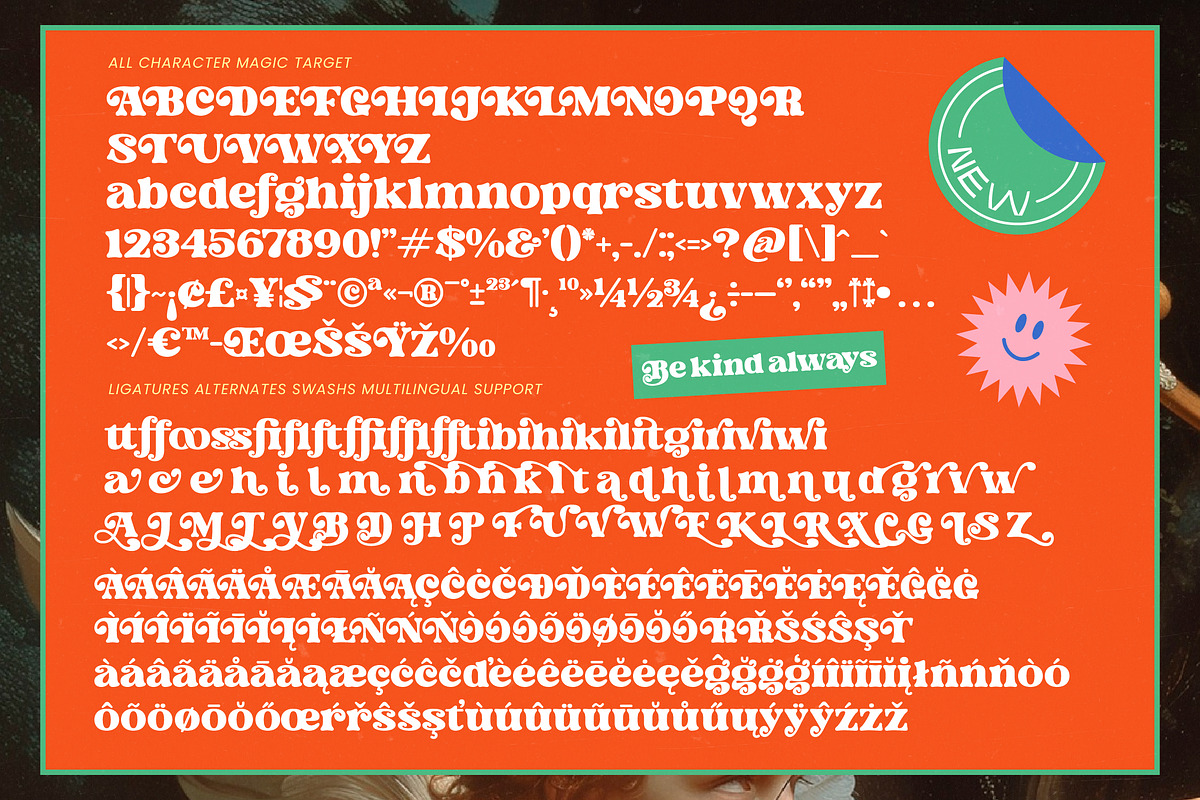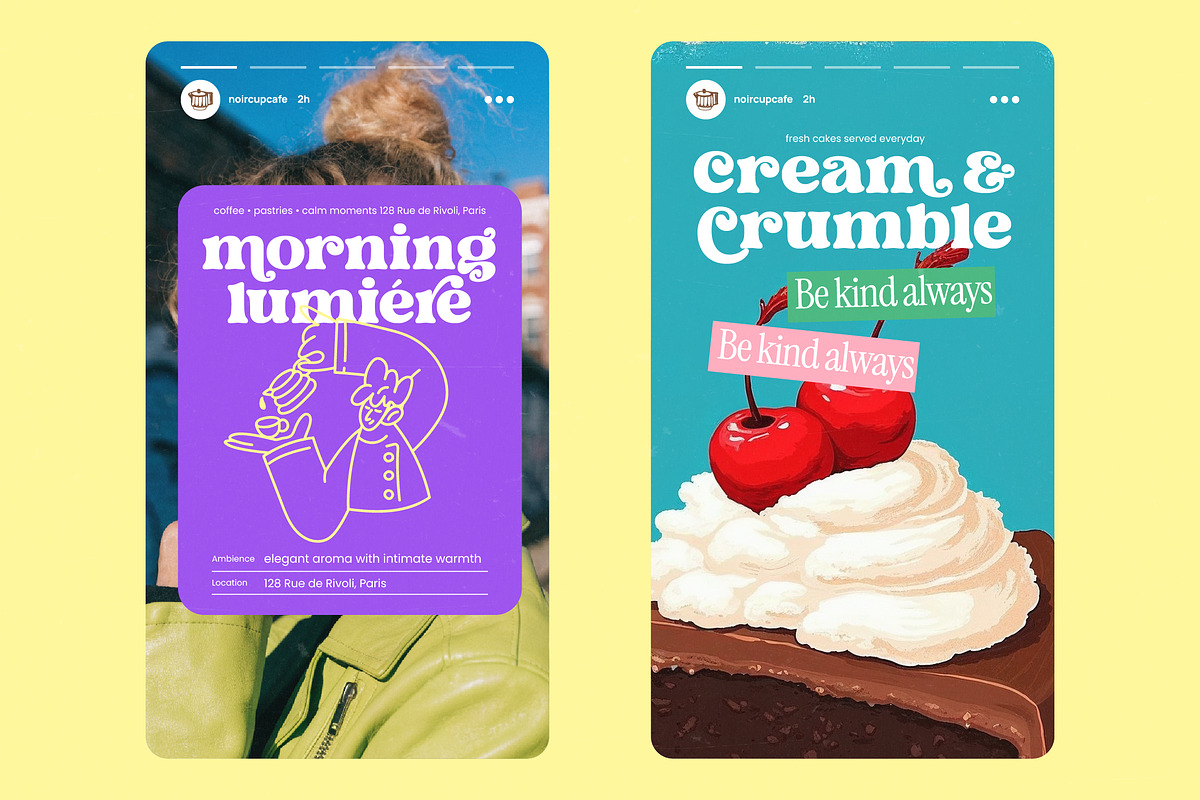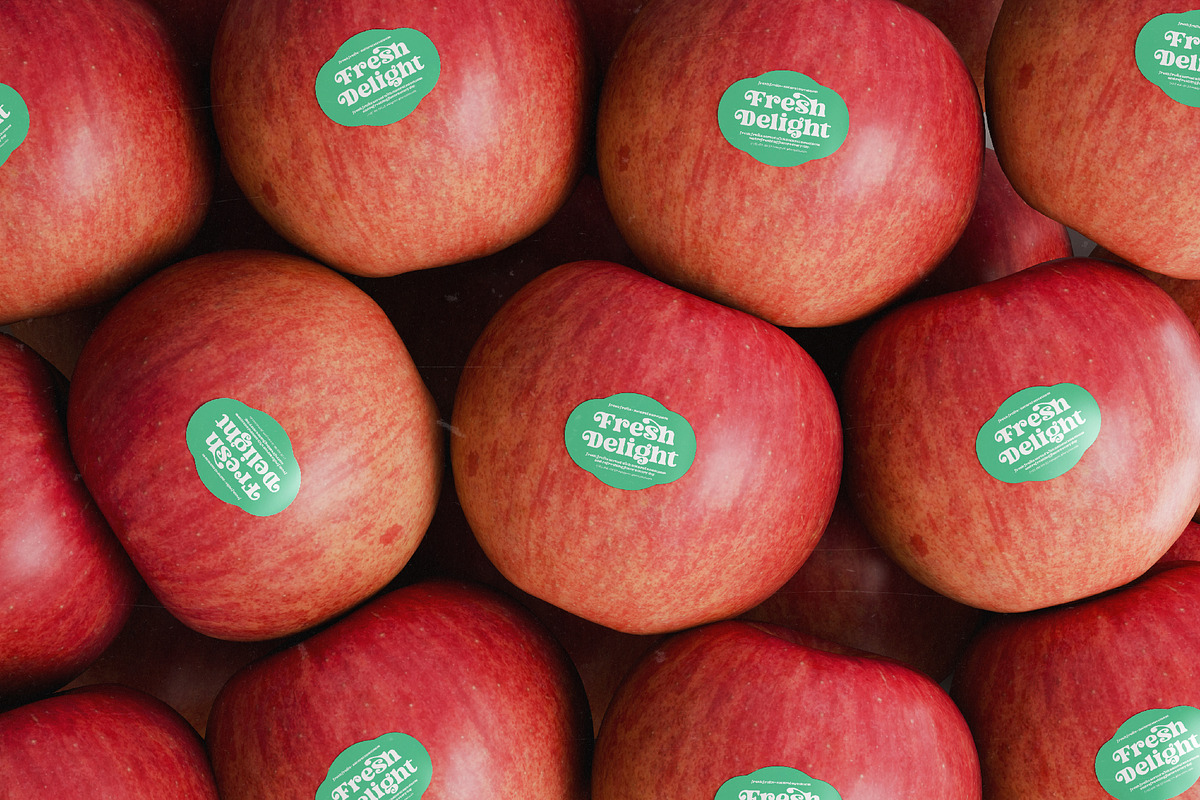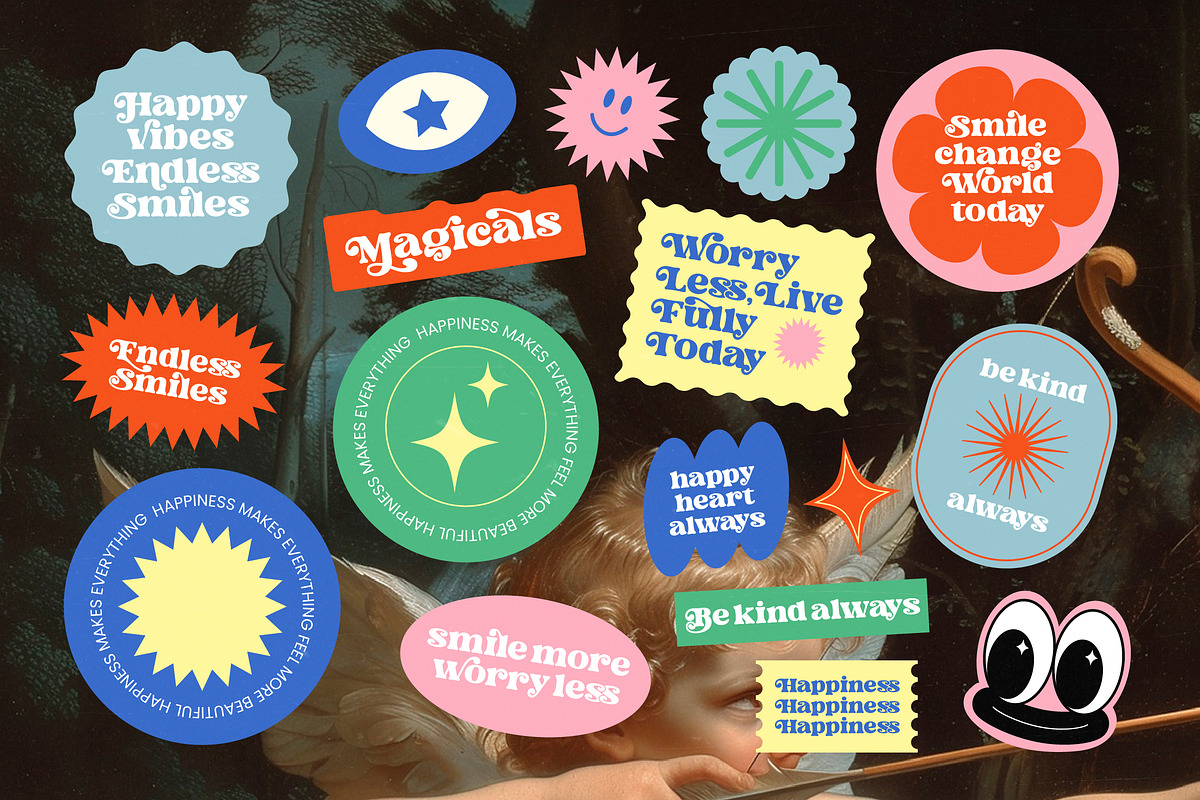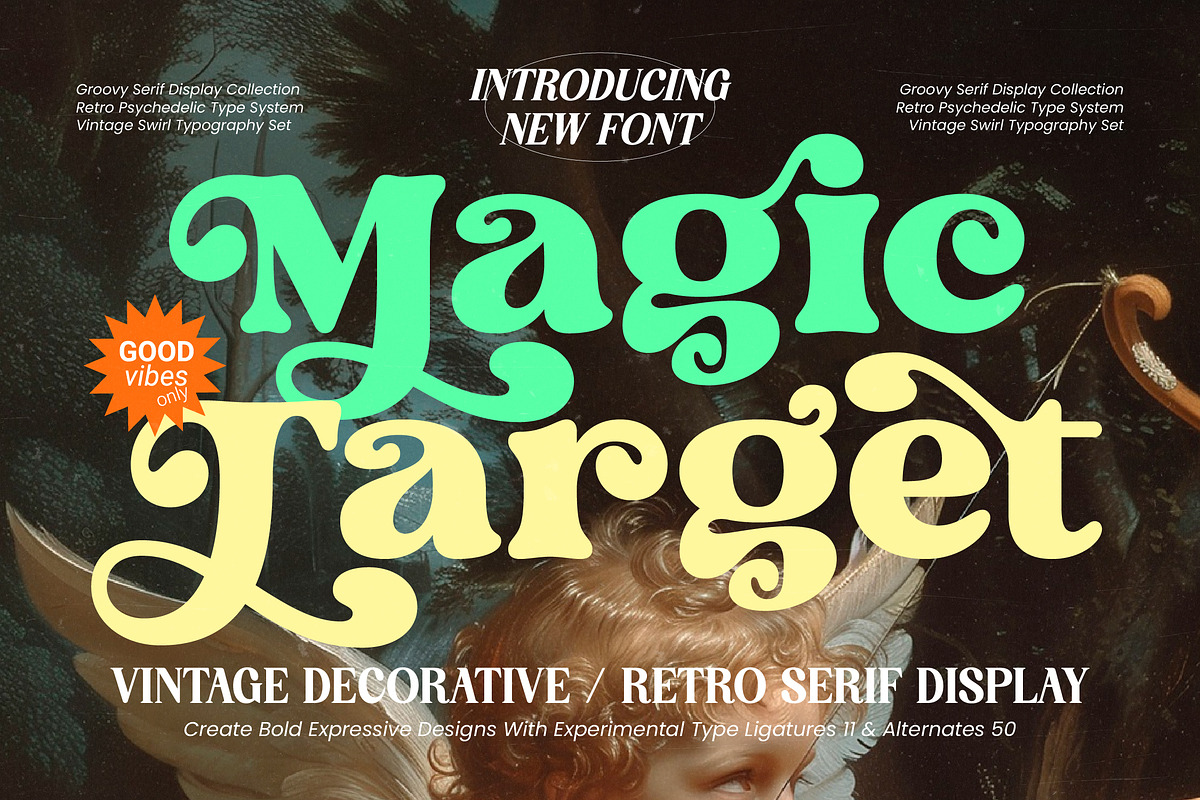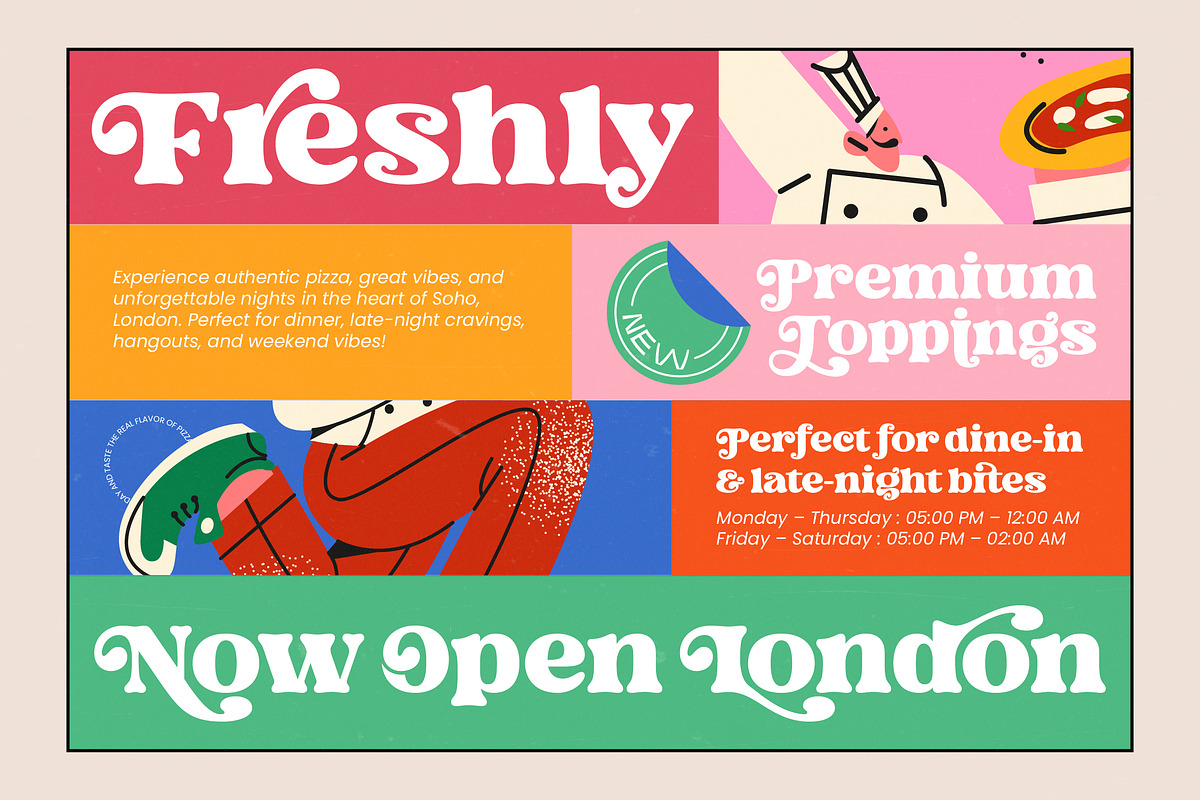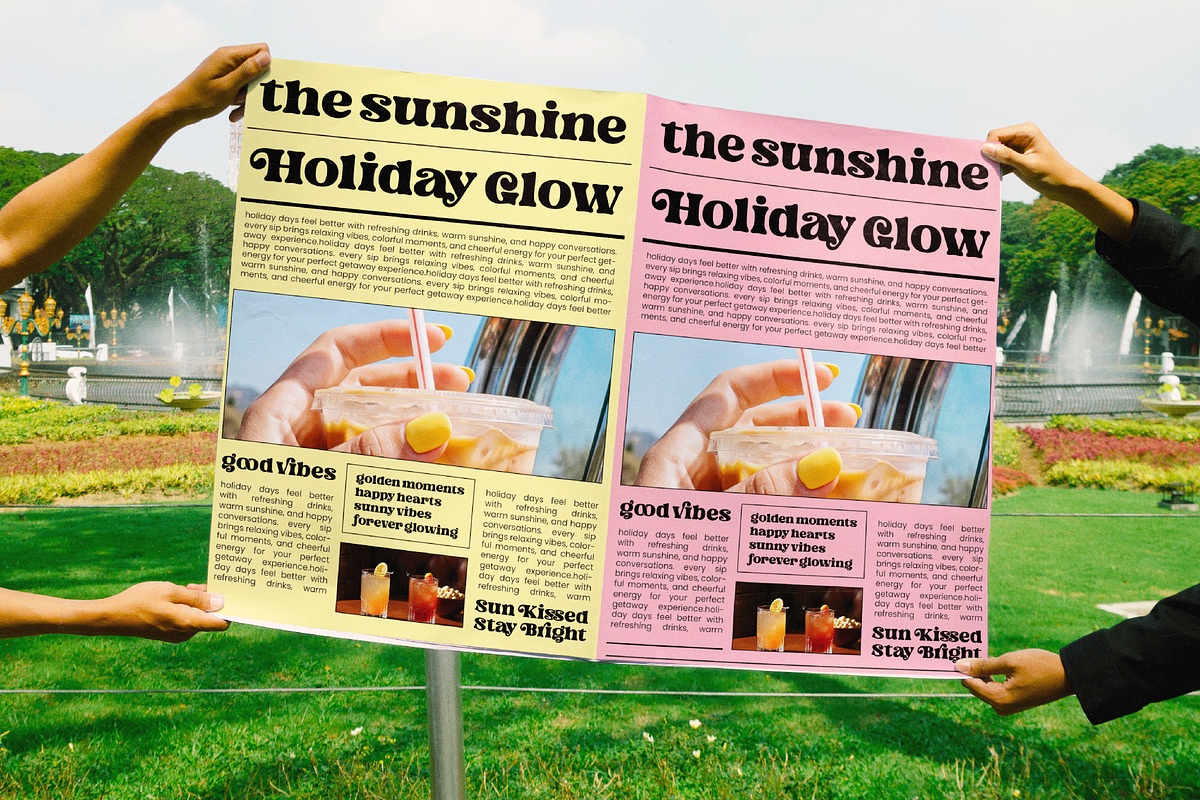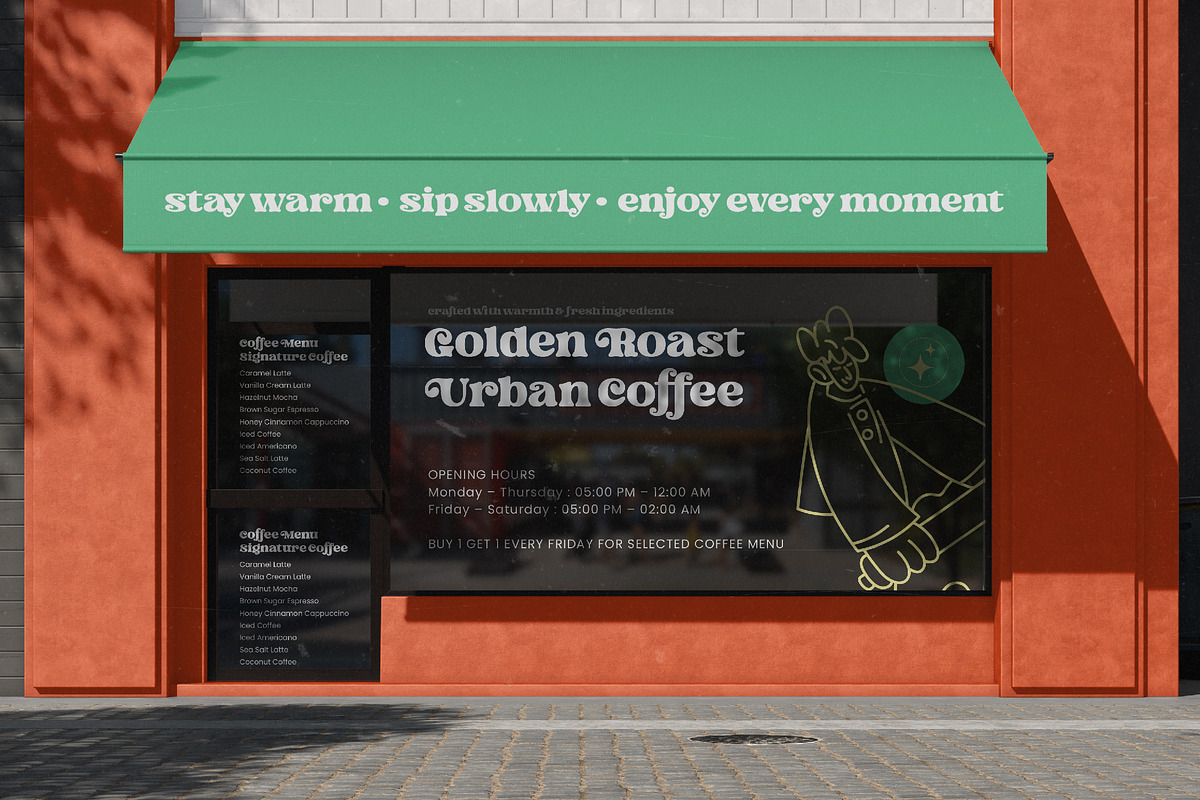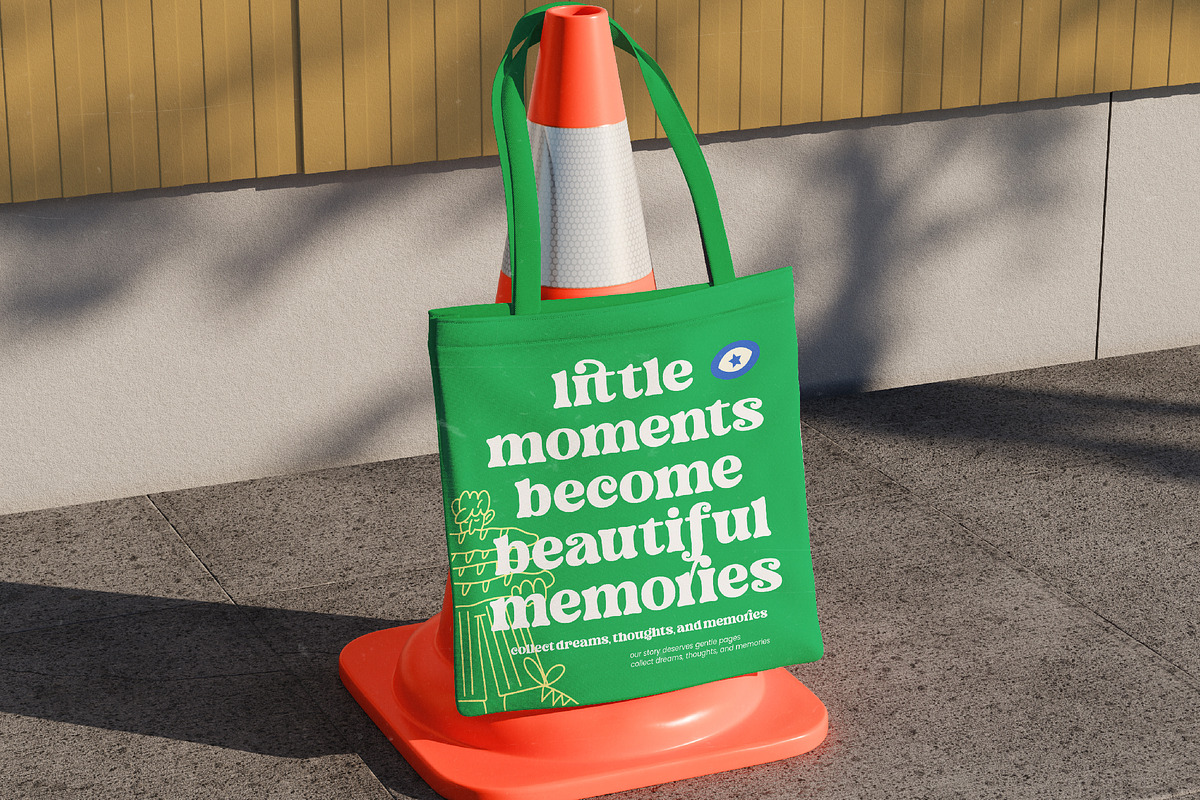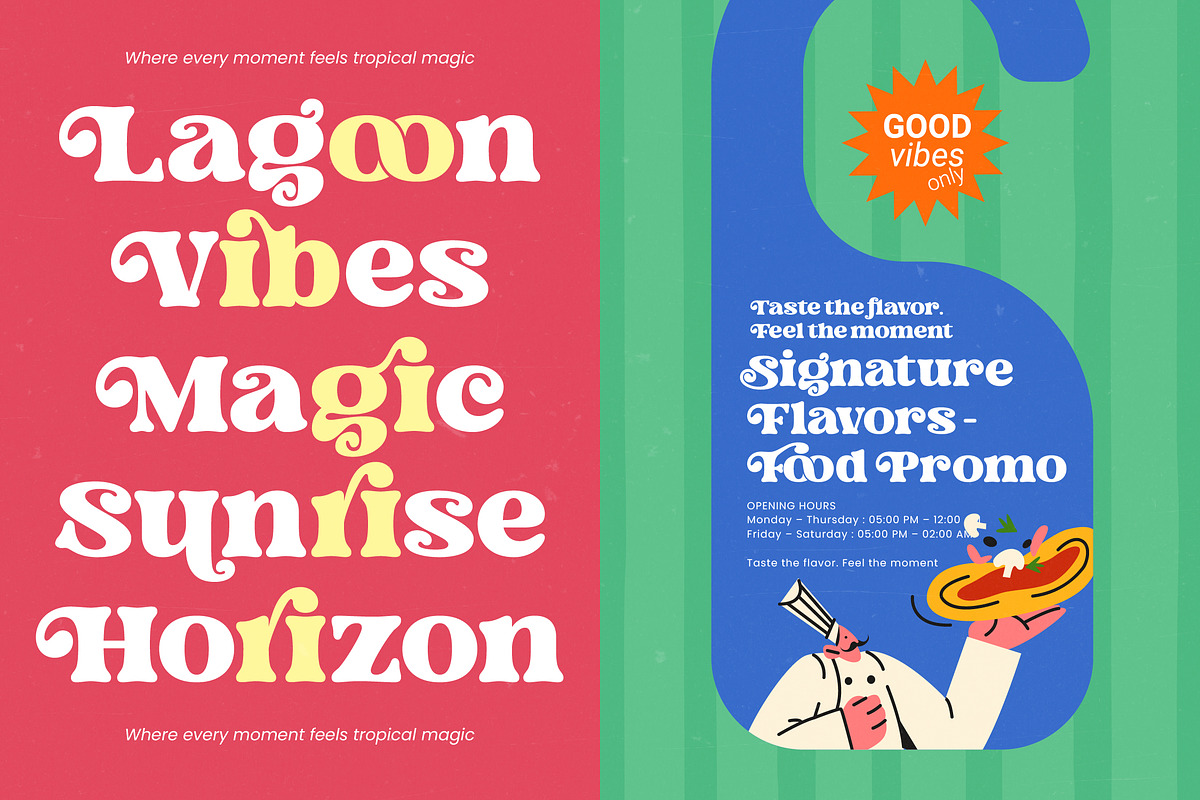
Magic Target Retro Serif Display
Magic Target – Retro Serif Display , Capture the essence of a bygone era with a modern twist using Magic Target – Retro Serif Display, a typeface that redefines vintage aesthetics. This groovy serif display collection draws inspiration from psychedelic type systems, offering a bold expressive design that commands attention. With its high-contrast strokes and fluid curves, Magic Target – Retro Serif Display is the ultimate tool for creators looking to infuse their work with retro charm and experimental typography.
Unleash unparalleled creative freedom through a comprehensive set of experimental ligatures and stylized alternates that provide endless customization. With its extensive multilingual support, Magic Target – Retro Serif Display adapts seamlessly across global markets, making it incredibly versatile for international projects. This functional flexibility ensures that your message remains impactful and legible, regardless of the linguistic context or geographic location.
Designed for high-end visibility, this typeface is the ideal choice for luxury branding, premium packaging, and sophisticated editorial design. Whether you are developing identity systems for a boutique brand or creating striking posters for an event, Magic Target – Retro Serif Display is perfect for projects that demand a unique visual signature. Its decorative swirls and vintage weight make it especially effective for headline typography and hero sections.
Master the art of visual storytelling by integrating a font that balances nostalgic flair with modern professional standards. By choosing Magic Target – Retro Serif Display, you are investing in a versatile design asset that transforms ordinary text into a dynamic masterpiece. Elevate your design portfolio today with this expressive serif and let your brand speak with a distinctive, groovy voice that resonates across the digital and print landscape.